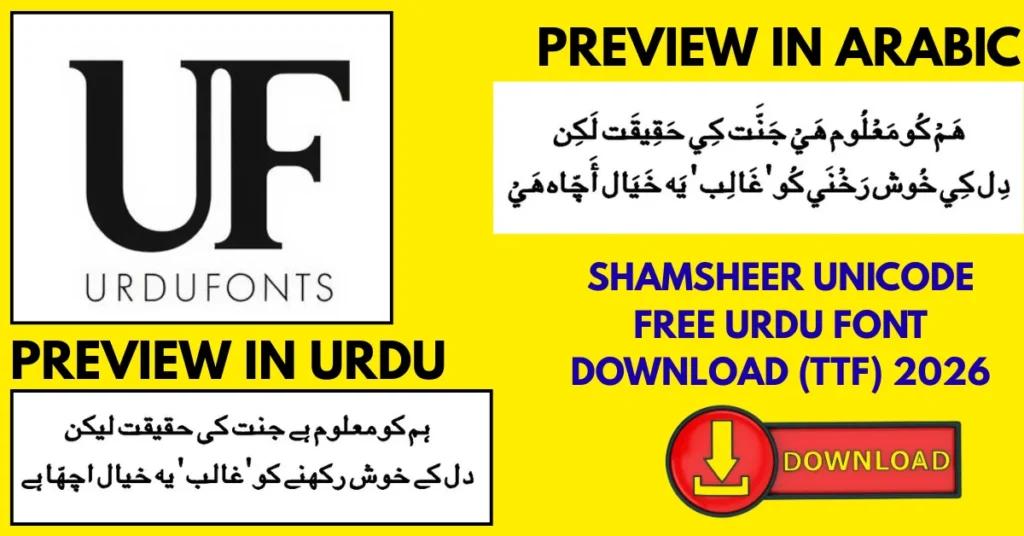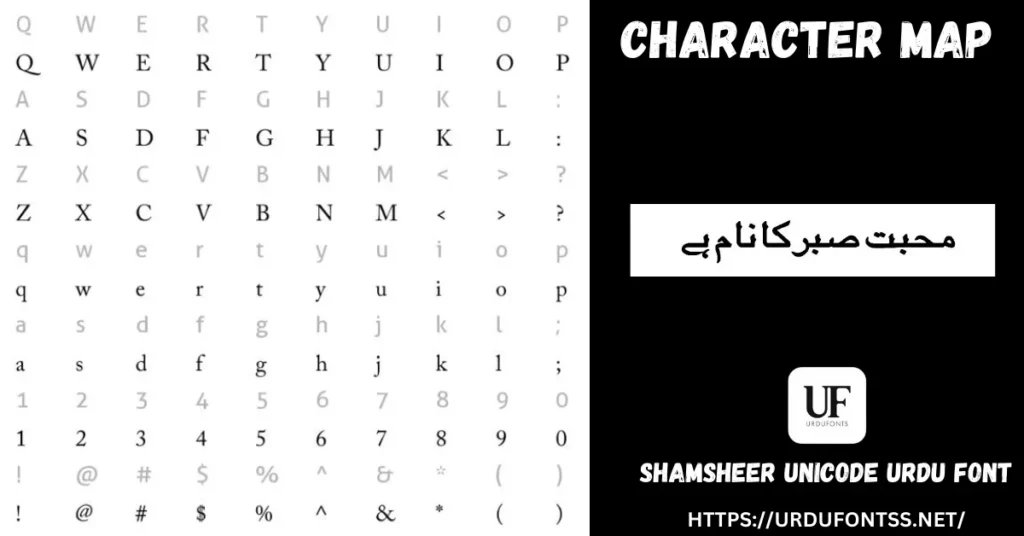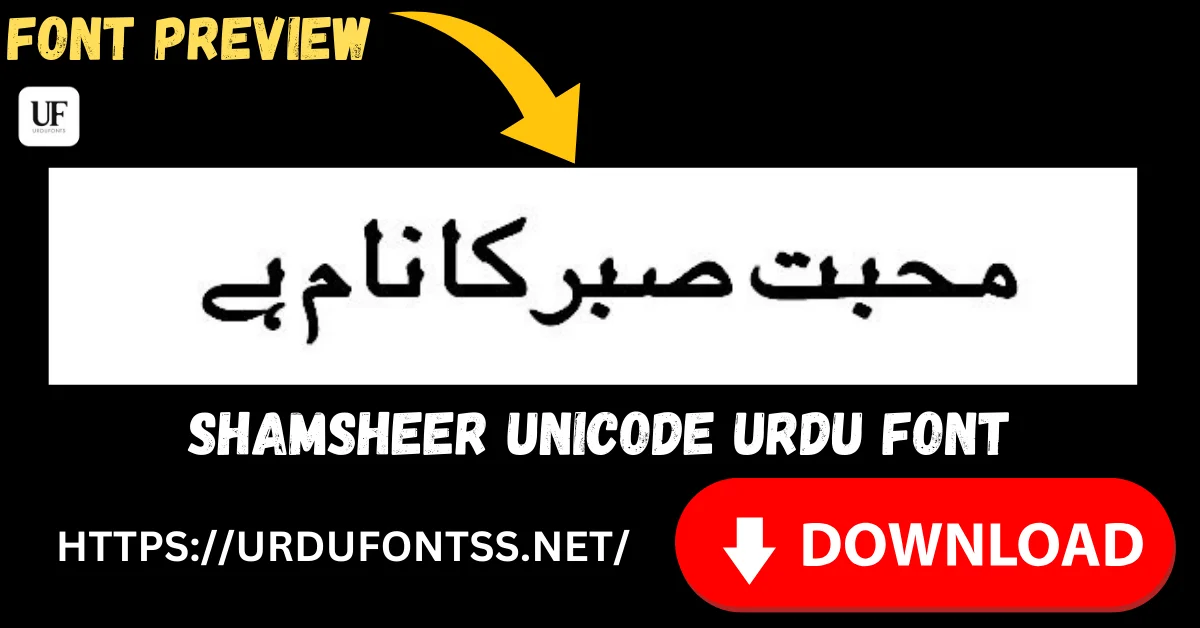
Shamsheer Unicode is a clean, lightweight Urdu font built on Unicode standards, so the text you type displays correctly — and copies, searches and indexes correctly — across websites, documents and devices. It is a TrueType (TTF) font made for bloggers, students and office users who need Urdu that simply behaves. Download the TTF free below and install it on Windows, Mac or Android.
| Style | Clean, readable Urdu text — Regular weight |
| Glyphs | 497 (verified in the font file) |
The preview above shows the font set in both Urdu and vocalised Arabic lines — the two jobs this Unicode face is most often hired for. Its full character set is in the map below.
What Makes Shamsheer Unicode Different
- Unicode first: unlike legacy non-Unicode Urdu fonts, its text is real text everywhere — search engines can read it, readers can copy it, and it will not break when a document moves between Word, WordPress and a phone.
- Genuinely lightweight: the whole download is a ZIP of about 67 KB, which is why it is a natural pick for websites and blogs that care about page speed.
- Clean, readable letterforms: drawn for long-form articles, educational material and informational sites — readers can stay in a page without eye strain.
- 497 glyphs, verified in the file: the glyph count on this page was confirmed against the downloaded TTF itself, and its editable embedding means shared documents keep the font’s rendering.
Best Uses for Shamsheer Unicode
- Blogging and website content — Unicode text that indexes cleanly and pastes without breaking.
- Educational and academic work — Urdu notes, assignments, digital books and research material.
- Office and documentation — Word documents, PDFs, reports and official Urdu letters.
- Graphic design and social media — quote posts, Islamic content, informational posters and thumbnails.
- Digital books and PDFs — long reading text with embedding that travels with the file.
Shamsheer Unicode vs Similar Fonts
| Font | How It Differs |
|---|---|
| Jameel Noori Nastaleeq | The decorative Nastaliq standard — beautiful, but tall and heavy for web body text. Choose Jameel for print-style Urdu; Shamsheer Unicode for screens, blogs and documents. |
| Urdu Naskh Unicode | A fellow Unicode text font in a Naskh cut. Set the same article in both and keep the line your readers find easier on screen. |
| SF Koonj Regular | Another lightweight Regular with smooth strokes and elegant connections, preferred for poetry and literary layouts. Shamsheer is the plainer, more informational of the two. |
How many glyphs does Shamsheer Unicode include?
497 glyphs, counted in the downloaded font file — the coverage behind its handling of Urdu and vocalised Arabic text.